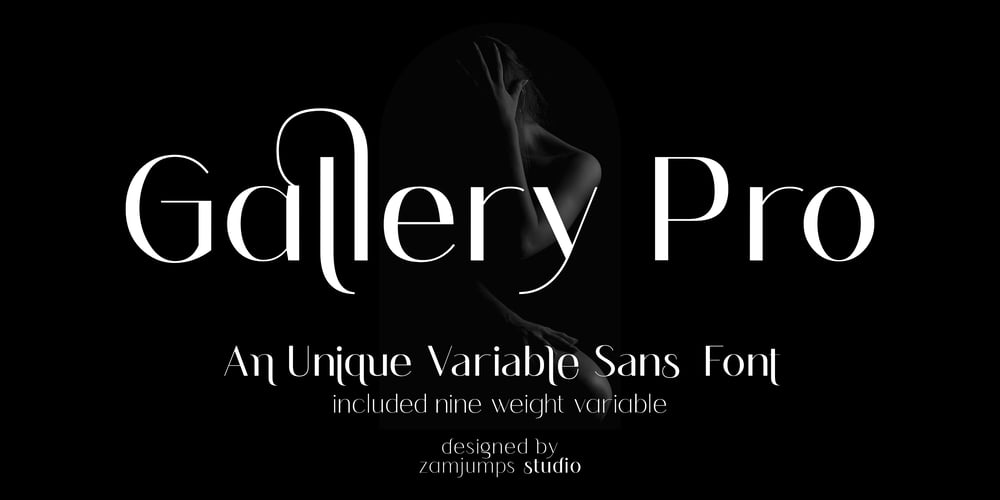
Gallery Pro Font Family was designed by Zamjump, Ahmad Zamzami and published by Zamjump. Gallery Pro contains 9 styles and family package options. Gallery Pro is a striking variable sans-serif font that offers nine different weights, allowing for versatile applications across a variety of design projects. Its unique style blends modern aesthetics with refined elegance, making it ideal for branding, book writing, headlines, and more.The font features a full set of alternate characters for both uppercase and lowercase, enhancing creative expression and customization. Additionally, Gallery Pro includes carefully crafted punctuation and number options, ensuring clarity and visual harmony in every context. Multiple languages available, of course.With standard ligatures included, Galleria effortlessly enhances the flow of typography, making it suitable for sophisticated design needs. Whether you’re crafting a compelling brand identity or designing an eye-catching editorial layout, Gallery Pro Variable Sans stands out as a versatile choice that elevates any creative endeavor.